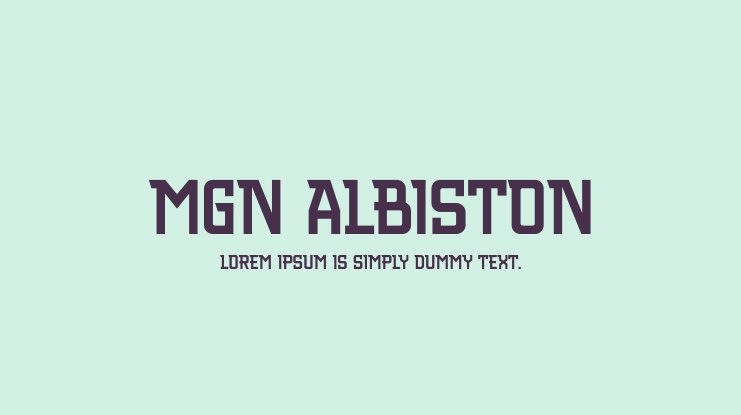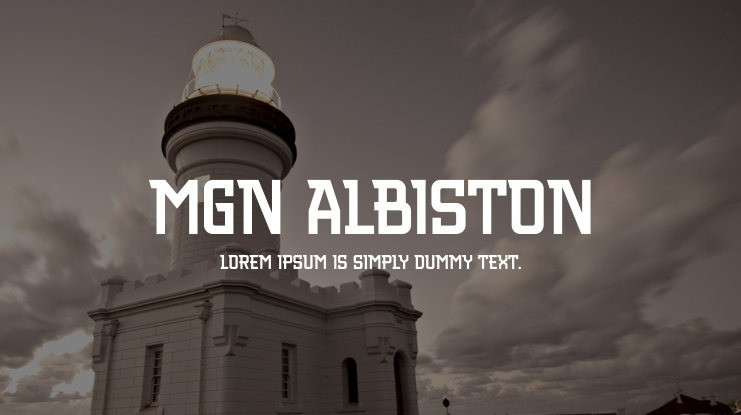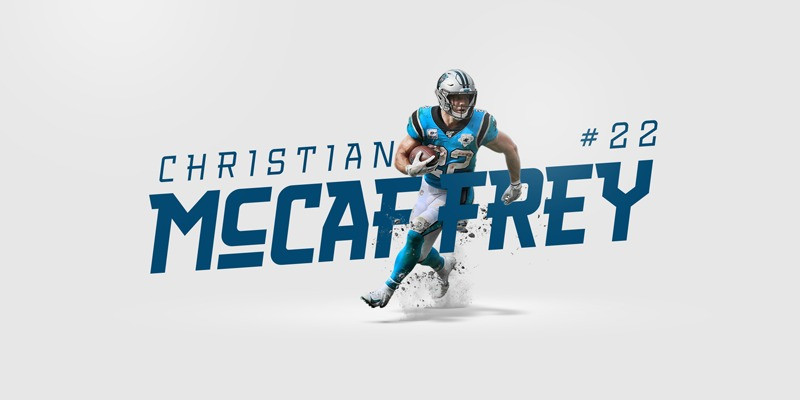
MGN Albiston Font
MGN Albiston Font is a condensed, sporty, and strong font. Albiston itself was inspired by the name of the legend of Manchester United era 1974-1988 years. He had a strong and sturdy defense as a player, and for that reason we named this font after him, so that this font will possess the traits of the legendary player of Manchester United.
This font is suitable for posters, t-shirts, and logos; it can be applied to vintage styles as well.